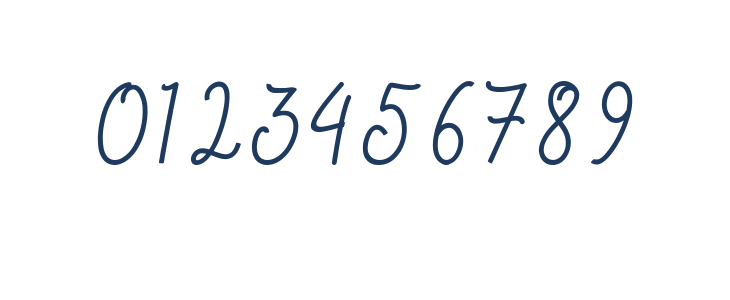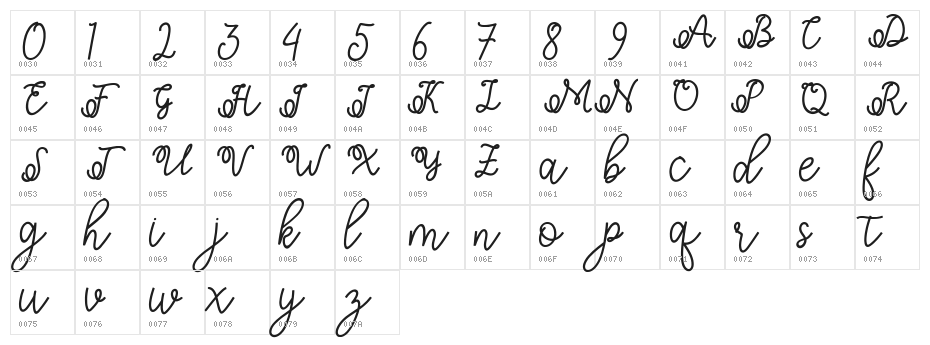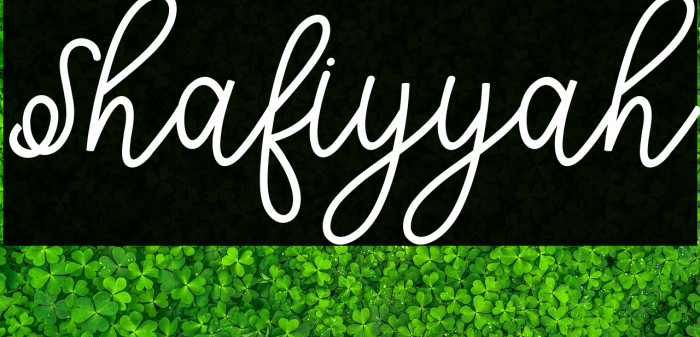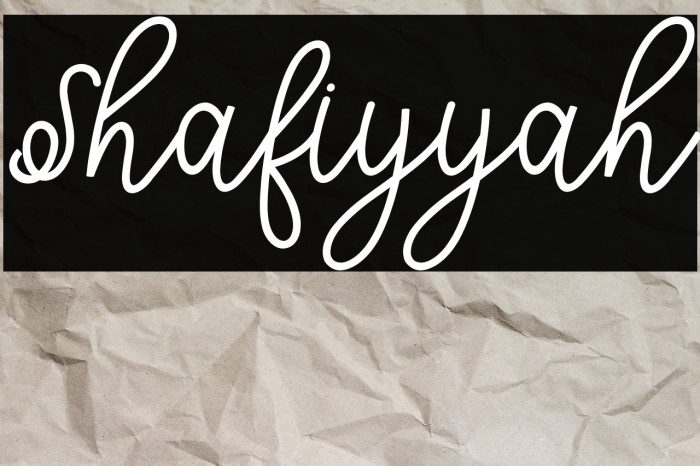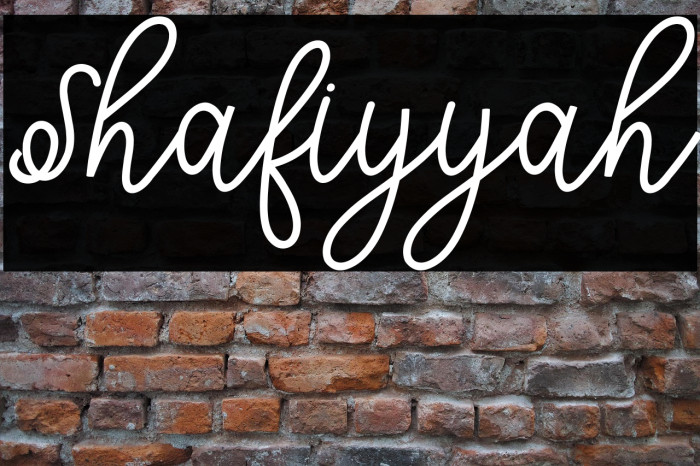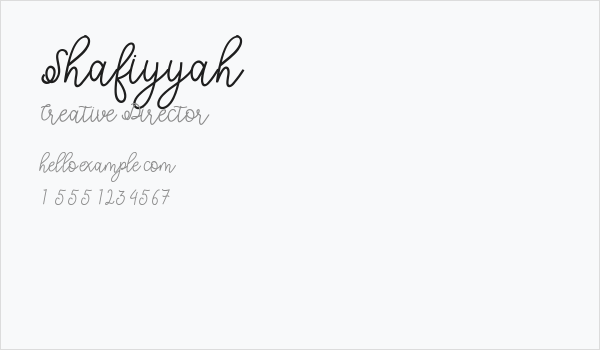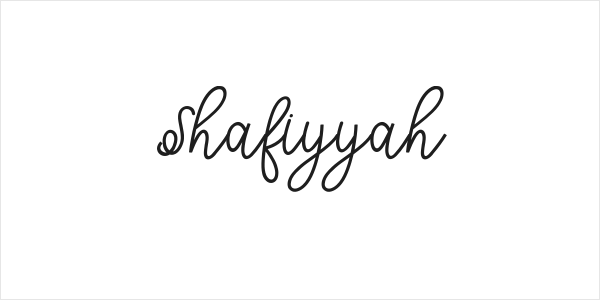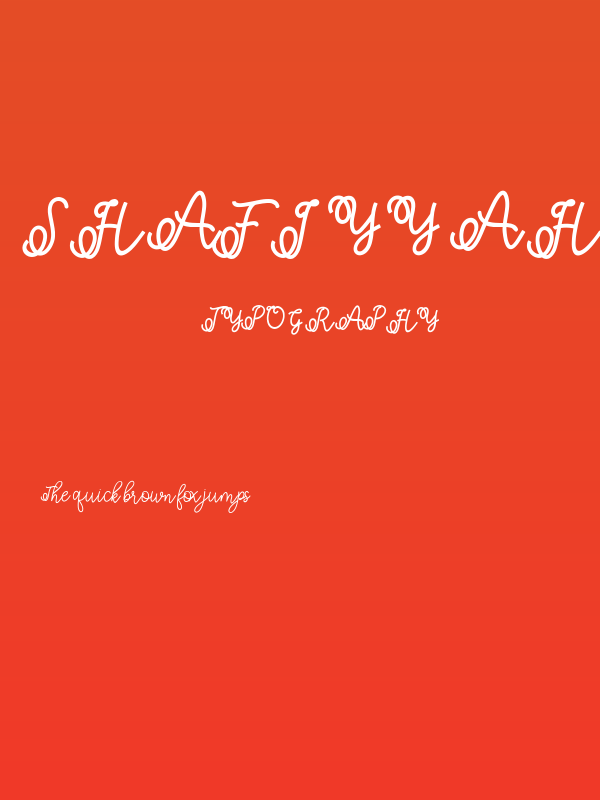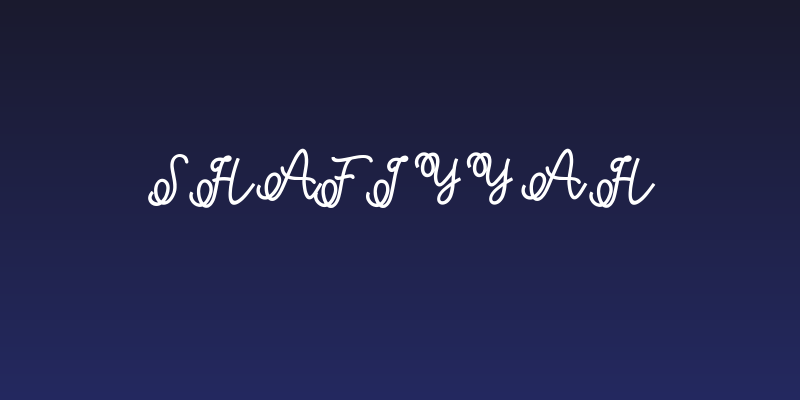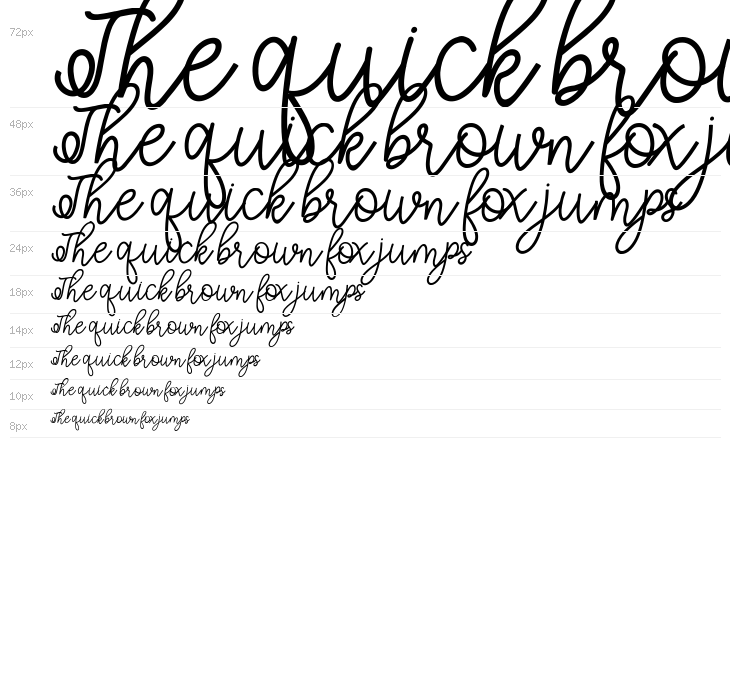
Shafiyyah Font
Shafiyyah Description
This font features an elegant and flowing script style, characterized by its smooth, connected strokes and graceful curves. The uppercase letters are ornate, with loops and swirls that add a decorative touch, while the lowercase letters maintain a more consistent and readable form. The numerals are clear and distinct, complementing the overall aesthetic. This font exudes a sense of sophistication and charm, making it suitable for a variety of creative applications.
| Overall Style | Elegant, Decorative |
| Use Case | Logos, Invitations, Decorative text |
| Proposed Projects | Ideal for wedding invitations, greeting cards, branding, and elegant logo designs. |